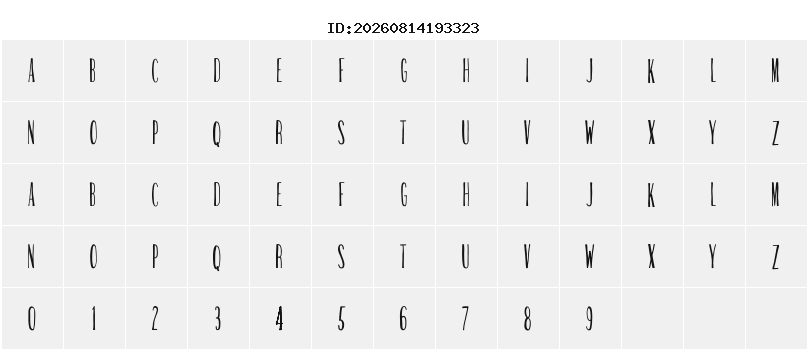
• Font Name: Stem Panini
• Designer: HENRIavecunK
Stem Panini.ttf is a modern, elegant sans-serif font designed for ultimate readability and visual harmony. Perfect for branding, headlines, web design, and print materials.